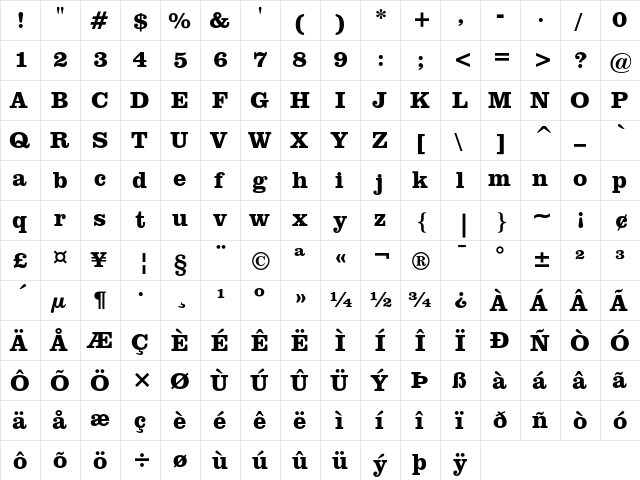
Clarendon Bold
Design Context for Clarendon Typeface
Clarendon combines the readability of serif typography with the visual weight of a slab construction, resulting in a typeface that feels both authoritative and approachable. The heavy weight commands attention and anchors typographic hierarchies.
Suited to magazines, political campaign materials, bold packaging, and any setting where authority matters.
Pro Tip: Use Clarendon for headlines and subheadings where its slab serifs can make an impression. It also holds up well in mid-size body copy thanks to its sturdy construction.